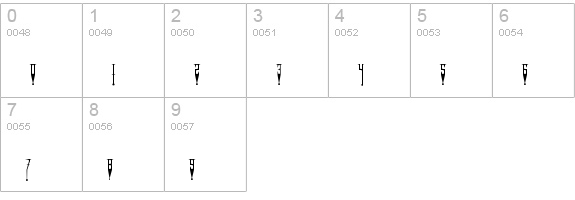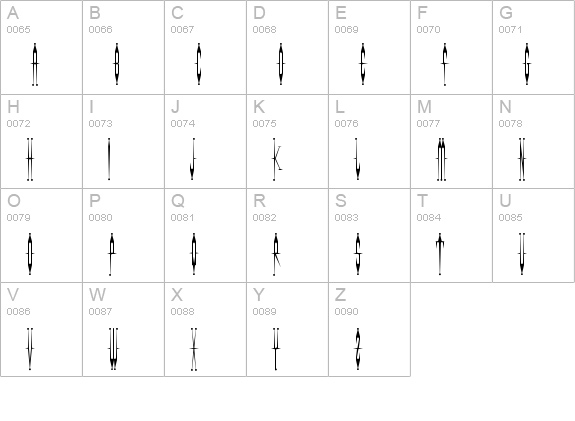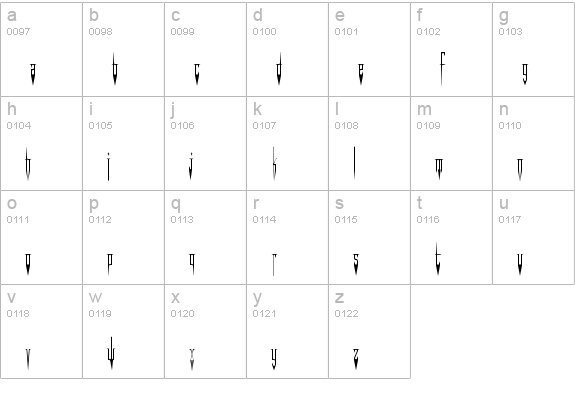
EvilClown Font Details
EvilClown font is a whimsically wicked and delightfully creepy typeface that embodies the essence of mischievousness and mystery. With its bold and twisted letterforms, this font is perfect for adding a touch of dark humor to your designs. Whether you're creating Halloween-themed party invitations, horror movie posters, or spooky social media graphics, EvilClown font is sure to make a chilling statement. Best of all, EvilClown font is available for free download at FontsMarket.com. Embrace your inner prankster and bring a touch of sinister fun to your projects with this unique and eerie font. Let EvilClown font unleash its devilish charm and add a sinister twist to your designs today.